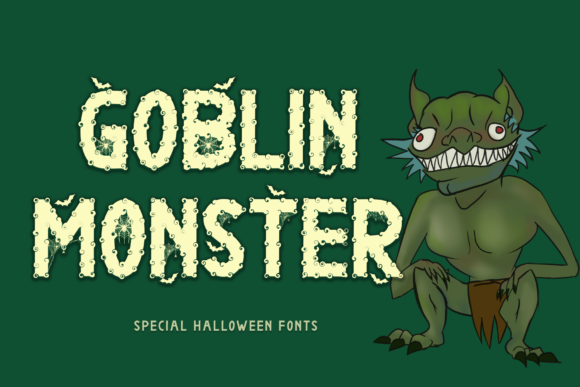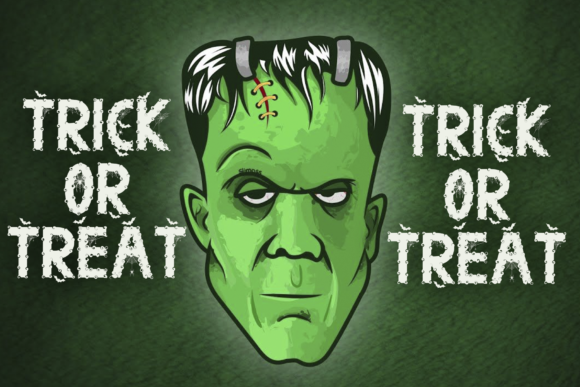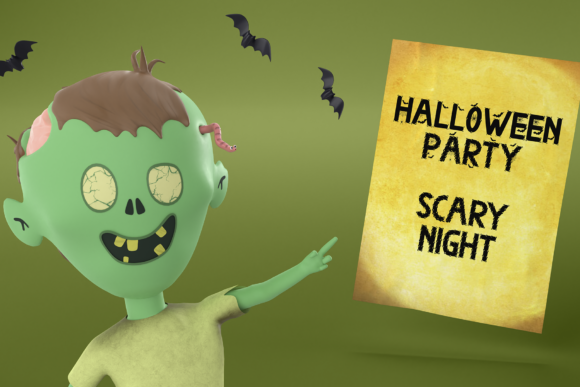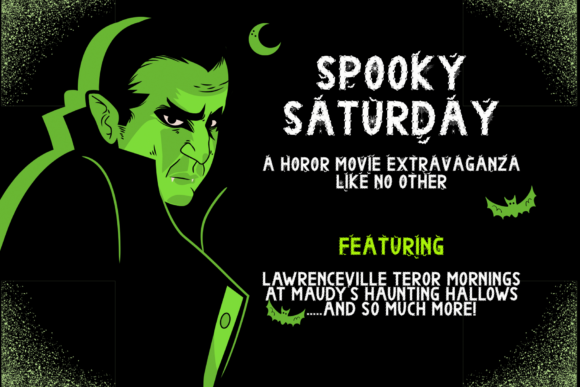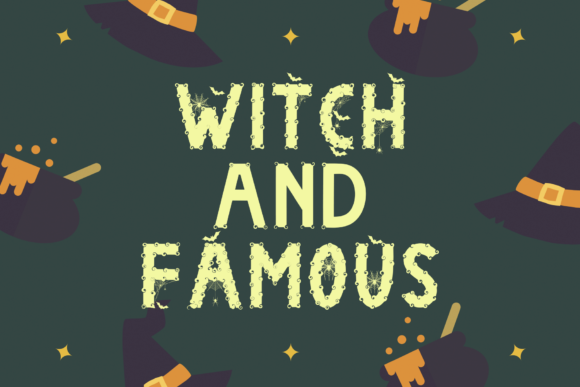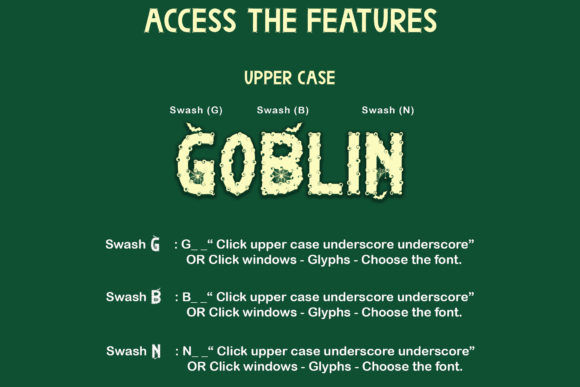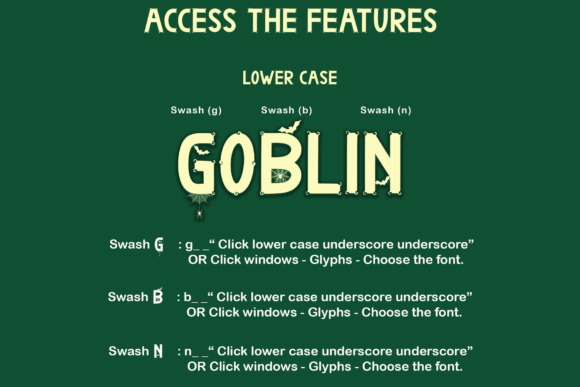
Get Ready to Cast a Spell with the Goblin Monster Font
Do you remember the moment when you first stumbled upon a creepy, abandoned house in a horror movie? The creaking doors, the flickering lights, and the eerie atmosphere all come together to create a sense of unease that sends shivers down your spine. As designers, we often strive to evoke similar emotions in our work, and that’s exactly where the Goblin Monster Font comes in.
This uniquely designed display font is perfect for any Halloween-related project or crafty idea that requires a touch of darkness and mystery. With its PUA encoded features, you can access all of the amazing glyphs and ligatures with ease, making it a valuable addition to any designer’s toolkit.
- Font Family: Goblin Monster Font is a unique, hand-drawn font designed to resemble a monster’s handwriting.
- Unique Characteristics: Goblin Monster Font features irregular letterforms, bold lines, and playful imperfections, giving it a distinct, hand-crafted feel.
Goblin Monster Font Review
I’ve worked with a lot of fonts in my design career, but the “Goblin Monster Font” is definitely one of a kind. Here are my honest thoughts on this unique font.
- ✨ The font’s bold, gothic style really stands out and grabs attention. It’s perfect for creating a sense of drama or unease in your designs.
- ✨ The character set is extensive, making it a great choice for a wide range of projects, from titles and headings to body text.
- ✨ The font is highly customizable, allowing you to adjust the weight, size, and color to fit your design needs.
- ⚠️ The font’s gothic style may not be suitable for all projects, particularly those that require a more professional or conservative tone.
- ⚠️ Some users may find the font’s boldness overwhelming, so it’s essential to use it in moderation.
- ⚠️ The font may not be optimized for smaller text sizes, which can affect readability.
I’d recommend the “Goblin Monster Font” for designers looking to add a touch of darkness or whimsy to their projects. While it may not be suitable for all projects, it’s a great choice for those that require a bold, attention-grabbing font. Just be sure to use it wisely and in moderation.
Some tips for getting the most out of the Goblin Monster Font include:
- Using it for titles and headings to add a touch of whimsy and fantasy.
- Combining it with other fonts to create a unique and eye-catching design.
- Experimenting with different font sizes and colors to create a sense of depth and dimension.
Q: Are there any specific design considerations when using the Goblin Monster Font?
Yes, the Goblin Monster Font is a fantasy-inspired font with unique character shapes and line styles. To get the best results, we recommend using the font in conjunction with a bold or heavy weight to create a striking visual effect. Additionally, consider using the font in conjunction with other fonts to create a balanced and harmonious design.